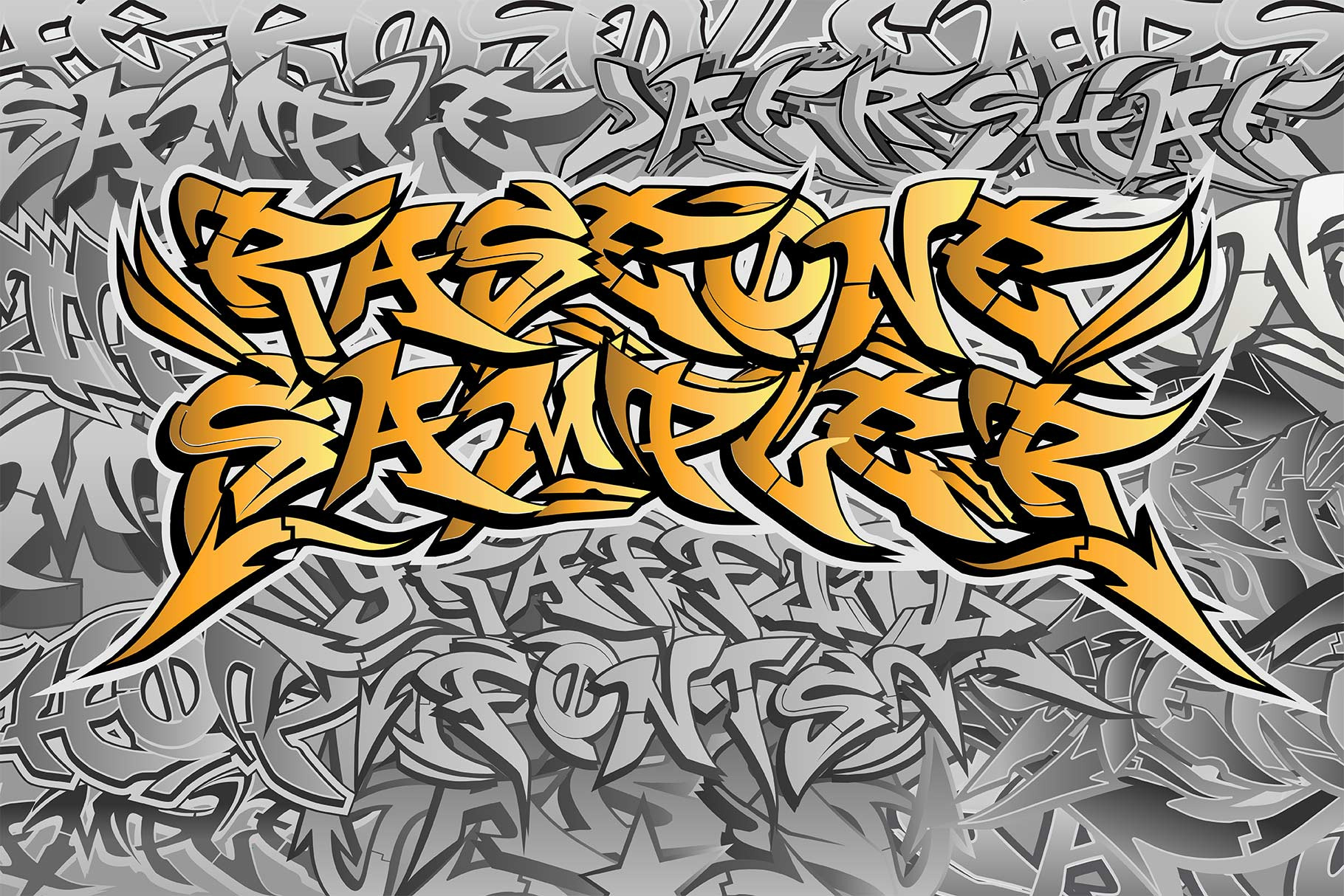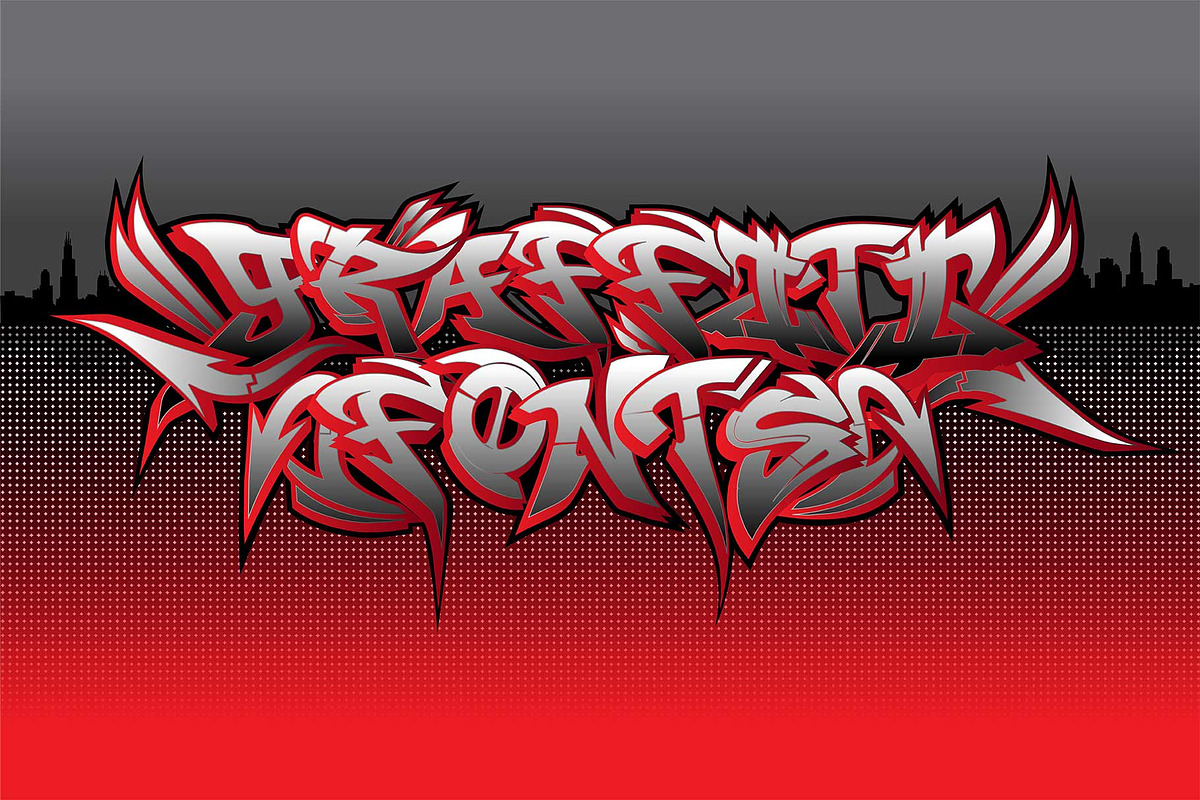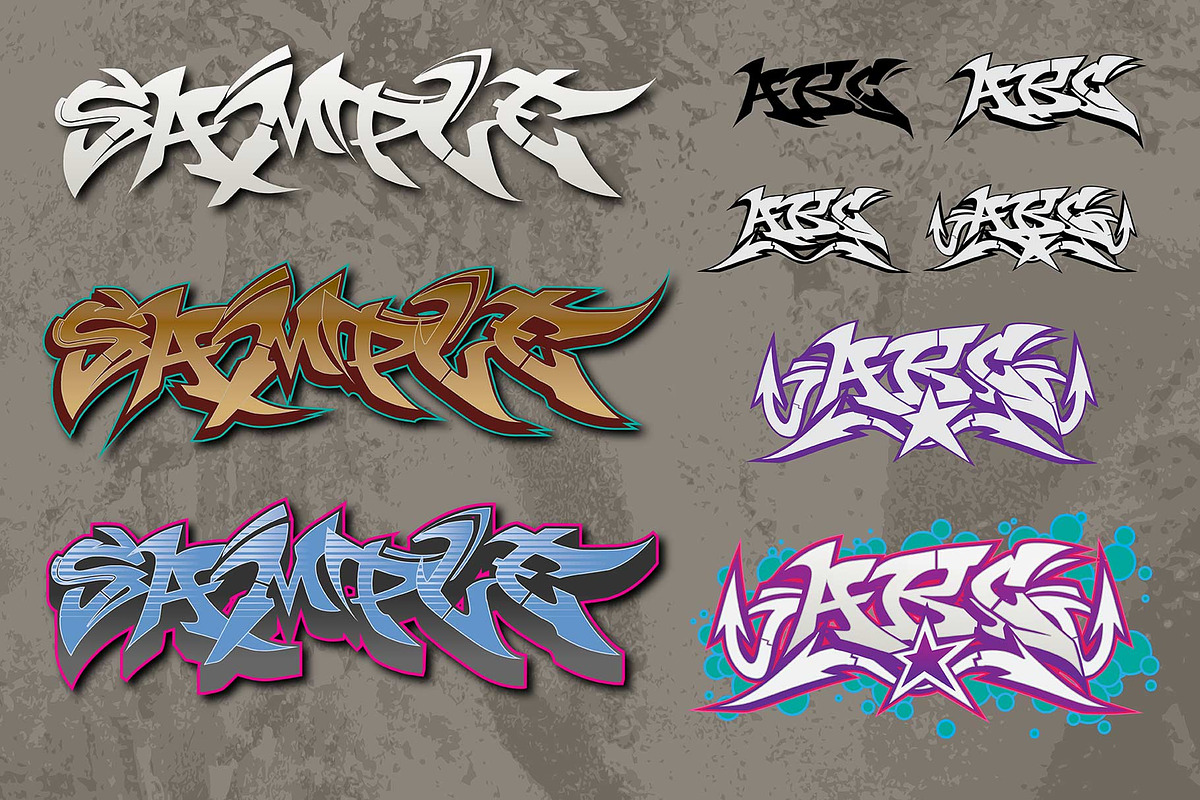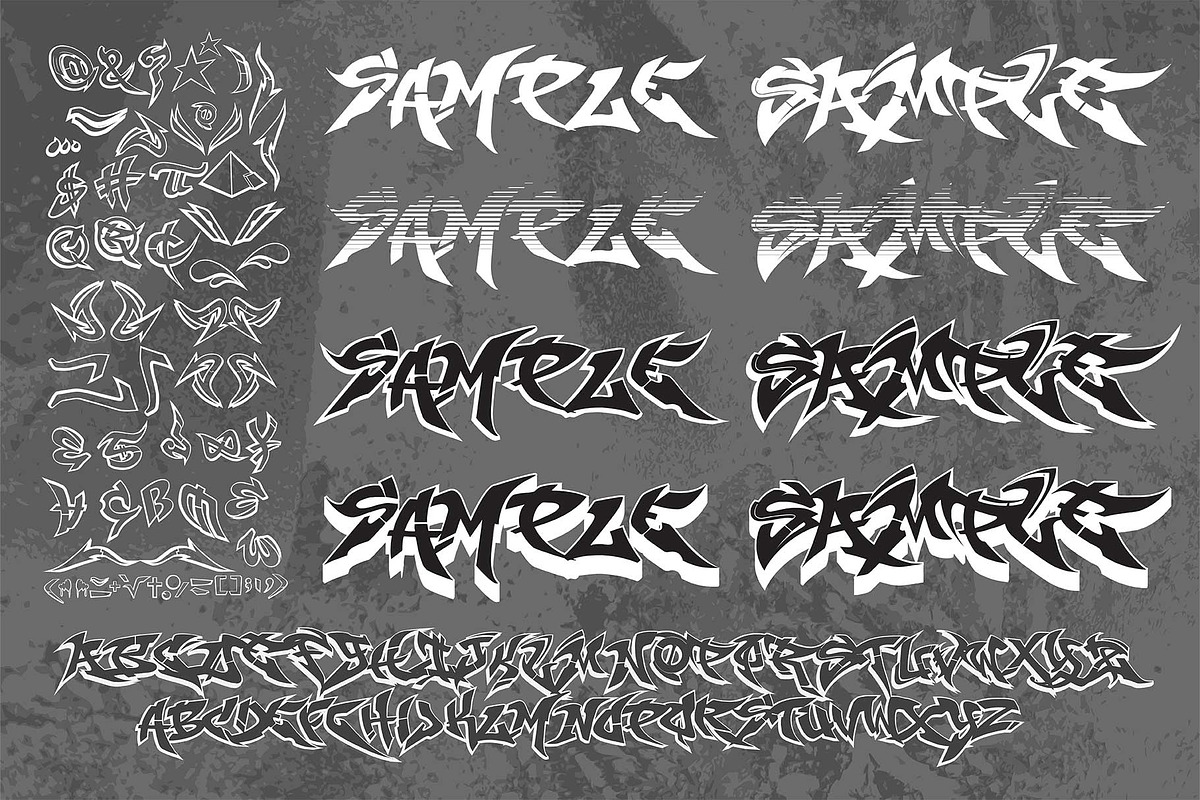
Graffiti Fonts | RaseOne
The RaseOne font family is a layered type system of five styles. The set includes a base fill layer, two outline and 3D style, a detail layer and a full-color SVG style. Each style offers over 230 glyphs including tons of arrows, flourishes, and initial and terminal bars for your pieces. The RaseOne font was first released in 1999 and was the first WildStyle graffiti typeface ever published.
- RaseOne Fill
- RaseOne Fade
- RaseOne Outline
- RaseOne Fat 3D
- RaseOne Color